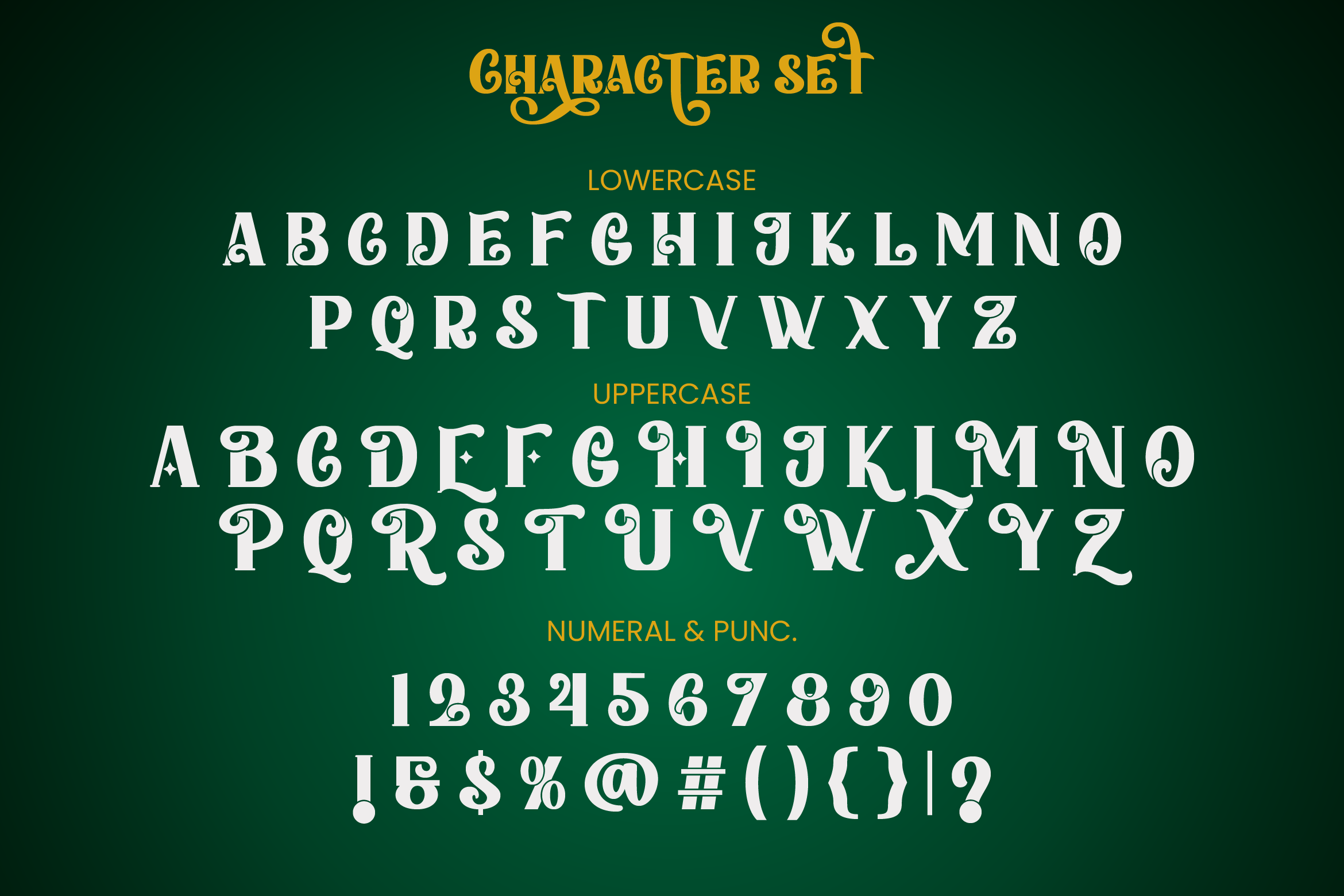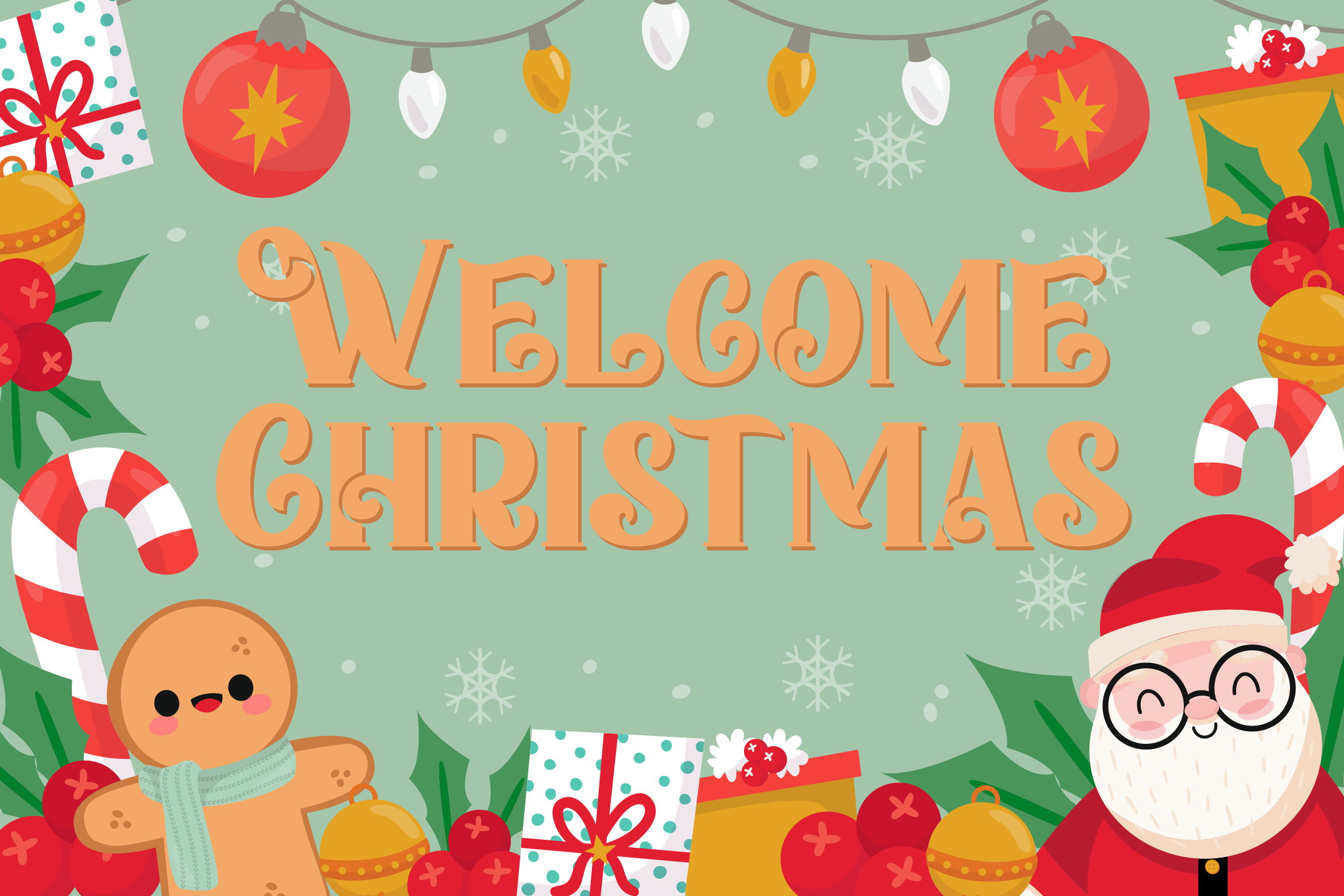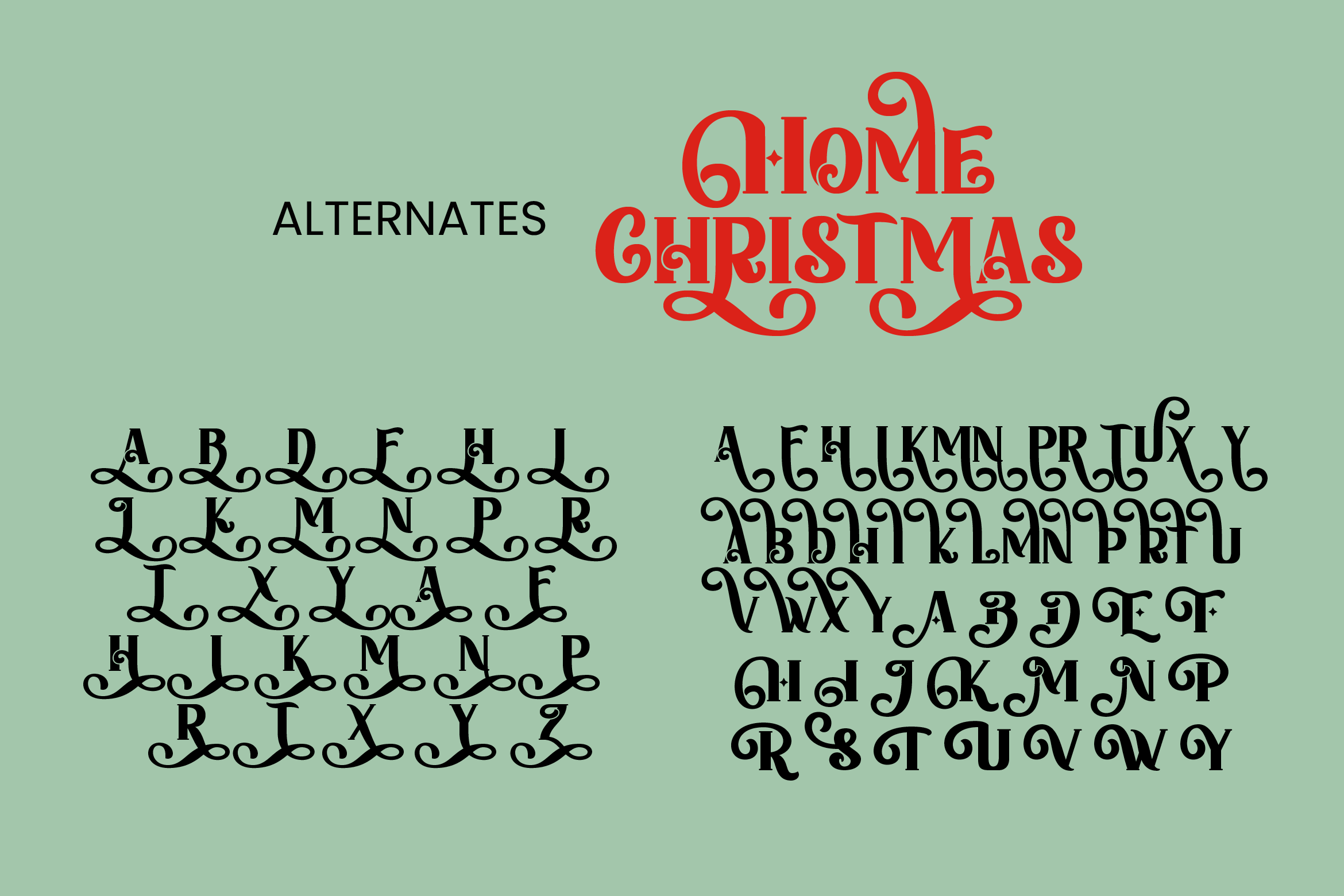
Home Christmas Serif Font
It’s a rustic serif font in Christmas theme, perfect for sleigh rides and caroling. It’s very suitable for Christmas cards, wedding invitations, branding, stationery, blog design, custom art, custom stamps, custom embossers, or any design purpose. This font is PUA encoded which means you can access all of the glyphs and swashes with ease!